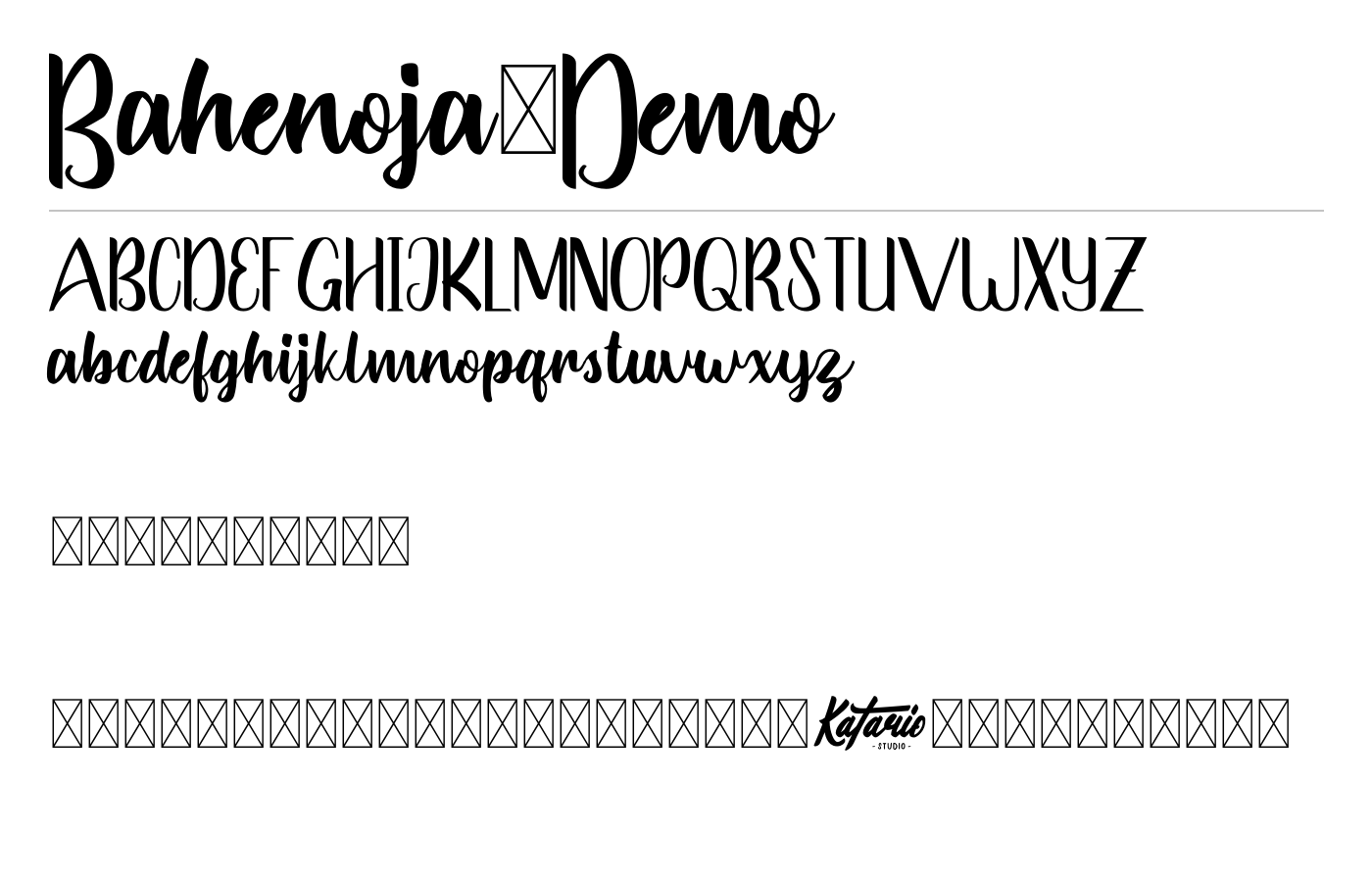
Bahenoja-Demo is a playful and stylish script font with a lively, handwritten feel combined with tall, elegant uppercase letters. Its thick, smooth strokes and casual curves make it perfect for creative projects like branding, invitations, or social media graphics, where a friendly yet modern look is desired. This font works best for headlines and decorative text, adding personality and charm to any design.
Bahenoja-Demo Font
About Bahenoja-Demo Font
| Font family | Bahenoja-Demo Font |
| Designer | Rioniga Zandy |